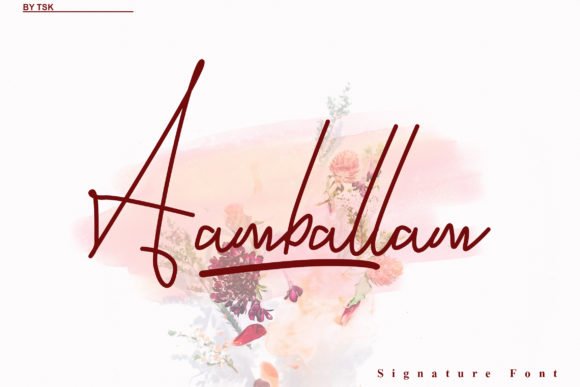
Ambitious Typography: Unlocking the Charm of Aambalam Font
Have you ever found yourself scribbling down ideas on a piece of paper, letting your pen wander across the page as you chase a creative thought? It’s moments like these that remind us of the beauty of handwritten typography – the imperfections, the character, and the unique charm that comes with it.
Ambitious designers know that capturing this essence in digital form is key to creating truly memorable designs. That’s where the Aambalam Font comes in – a modern, 100% handwritten font that brings a cool charm to your projects. Perfect for adding a touch of personality to your branding, packaging, or advertisements, the Aambalam Font is a valuable asset for designers looking to elevate their creative game.
Aambalam Font Key Features
- Font Family: Aambalam is a unique and exclusive font family that offers a range of styles and weights.
- Size: The font family includes multiple weights, ranging from Extra Light (100) to Extra Bold (800), providing versatility for various design applications.
- Resolution: Optimized for high-resolution displays, making it suitable for use in digital media, such as websites, mobile apps, and social media platforms.
- Unique Characteristics: Aambalam’s distinctive design features intricate details and ornaments, making it an ideal choice for creating visually striking and unique visual content.
Aambalam Font Review
Overall, I’m quite impressed with the Aambalam font. It’s a unique and elegant script font that can add a touch of sophistication to any design. Here are some things that I think work well:
- ✨ Beautiful script strokes that give it a natural and handwritten feel.
- ✨ High-quality rendering that makes it look crisp and clear, even at larger sizes.
- ✨ Excellent support for a wide range of languages, making it a great choice for multilingual designs.
However, there are a few limitations that I think are worth mentioning:
- ⚠️ Limited character set, which may not be ideal for projects that require a wide range of special characters.
- ⚠️ May not be suitable for very small font sizes, as the strokes can become fuzzy and difficult to read.
- ⚠️ Some users may find the font a bit too ornate, which can be overwhelming in certain contexts.
In my opinion, the Aambalam font is a great choice for designers who want to add a touch of elegance and sophistication to their projects. While it may have some limitations, it’s a high-quality font that is well worth considering for the right project.
Tips for Getting the Most Out of Aambalam Font
Use Aambalam Font for traditional and cultural designs, such as wedding invitations, festival banners, and cultural events.
Combine Aambalam Font with other fonts to create a unique and eye-catching design.
Aambalam Font is commonly used for:
- Traditional and cultural designs
- Festival and event banners
- Cultural and historical projects
Alternatives to Aambalam Font for Designers
1. Lato
Lato is a modern sans-serif font that is highly legible and versatile. It is ideal for use in digital and print media, particularly in headings and titles. Lato is a great alternative to Aambalam Font as it offers a similar clean and minimalist aesthetic, but with a more modern and sleek feel.
Open Sans is a highly readable and neutral sans-serif font that is suitable for a wide range of applications. It is a great choice for body text and is also versatile enough to be used in headings and titles. Compared to Aambalam Font, Open Sans has a more neutral tone and a slightly more informal feel.
Montserrat is a geometric sans-serif font that is highly versatile and suitable for use in a wide range of applications. It is a great choice for headings and titles, particularly in urban and modern contexts. Compared to Aambalam Font, Montserrat has a more geometric and industrial feel, making it a great choice for designs that require a strong and modern aesthetic.